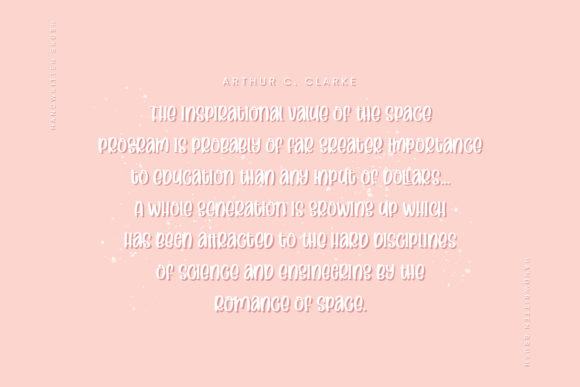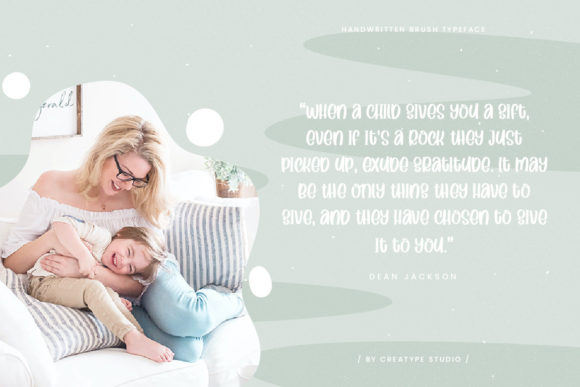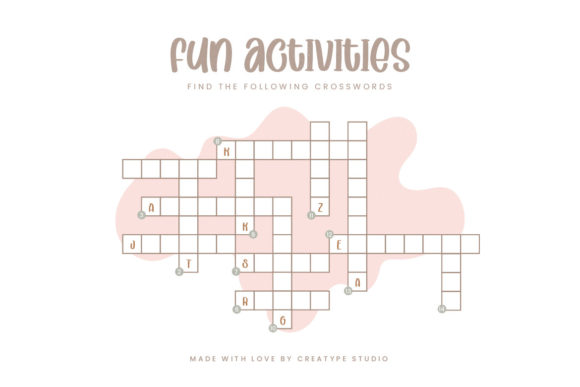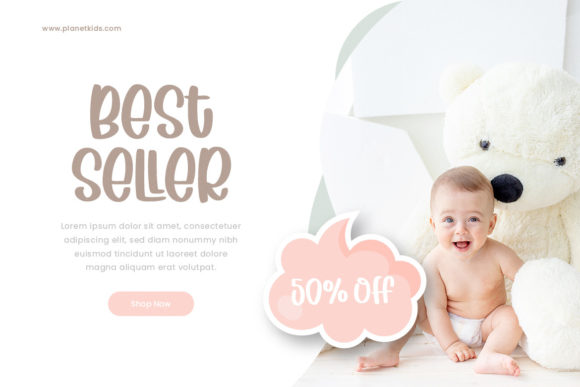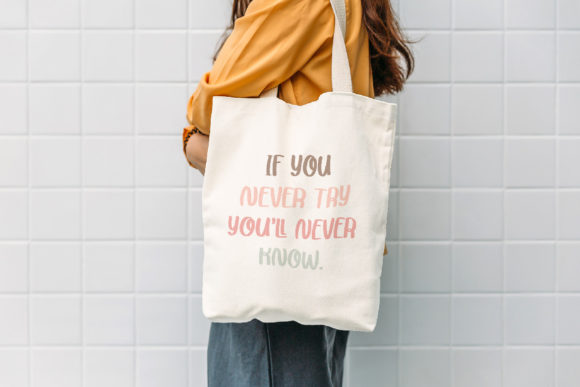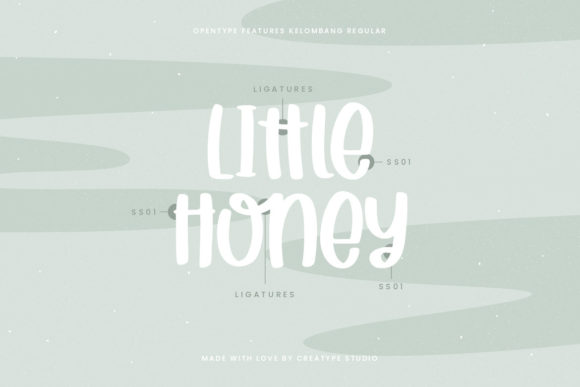
Introduction to Kelombang Font
Have you ever stared at a blank canvas, wondering how to bring your creative vision to life? It’s a feeling many designers know all too well. For me, it was a late-night session spent brainstorming ideas for a new project when the perfect font suddenly popped into my mind. I envisioned a playful, handwritten font that would add a touch of whimsy to my design. And so, the Kelombang Font was born.
With its adorable shape and fresh feel, the Kelombang Font is the perfect design resource for any creative project. Whether you’re working on a free download, a commercial campaign, or a high-quality product label, this font is sure to bring a smile to your customers’ faces. And with its transparent background, you can easily layer it over your design without any fuss.
As a designer, having access to a versatile and high-quality font like Kelombang can be a game-changer. It’s not just a design element – it’s a way to convey your brand’s personality and values. And with the Kelombang Font, you’ll have endless possibilities to explore and express your creativity.
Key Features of Kelombang Font
- High-quality design: Kelombang Font is a carefully crafted design resource ideal for creative projects that require a unique touch.
- Transparent background: This font features a transparent background, making it perfect for use on any background or design element.
- Perfect for digital projects: With its clean and modern design, Kelombang Font is ideal for use in digital projects, such as logos, icons, and graphics.
- Unique design style: Kelombang Font features a distinctive design style that sets it apart from other fonts, making it a great choice for designers looking to add a touch of personality to their projects.
Honest Review: Kelombang Font
As a designer, I’m always on the lookout for high-quality design resources to elevate my creative projects. The Kelombang Font caught my attention, and I was excited to give it a try.
What works well about this font is its unique and playful design. It’s perfect for adding a touch of personality to your design project. The transparent background allows for seamless integration with other design elements. Additionally, the font is available for free download, making it a great resource for designers on a budget.
Here are some of the key features that I like about the Kelombang Font:
- Unique and playful design
⚠️ One of the limitations of the Kelombang Font is that it may not be suitable for formal or professional projects. The font’s playful design may not convey the level of professionalism required for certain types of projects.
Overall, I’m impressed with the Kelombang Font and would definitely recommend it for creative projects where a unique and playful design is needed.
Introduction to Kelombang Font
Kelombang Font is a high-quality design resource that offers a unique and creative way to enhance your projects. With its transparent background, it’s perfect for free download and use in various applications.
Tips for Getting the Most Out of Kelombang Font
Here are some tips to get the most out of Kelombang Font: Experiment with different font sizes, colors, and styles to create a unique look. Use Kelombang Font to add a creative touch to your designs.
Common Use Cases for Kelombang Font
Kelombang Font is perfect for various creative projects, including: Social media graphics, business cards, and brochures. Its high-quality design and transparent background make it ideal for free download and use in various applications.